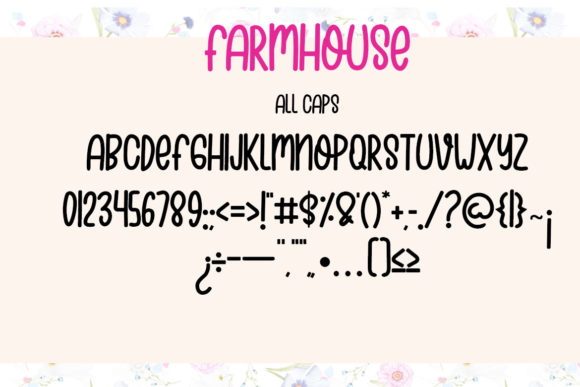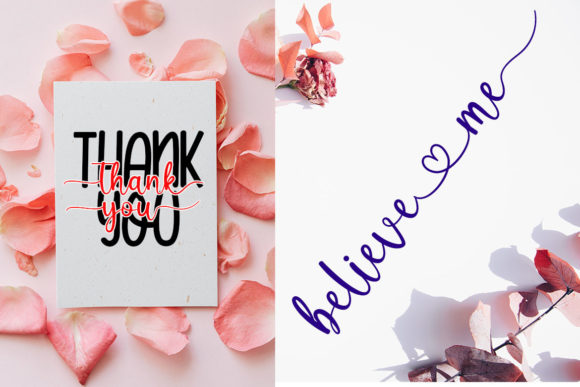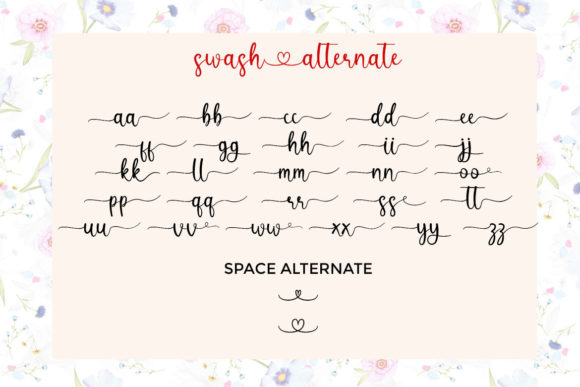
About Farmhouse Aglo Font
Farmhouse Aglo is a lovely duo font (sans serif and script). It is defined by smooth curves and is perfect for fashion branding or editorial designs. This font is PUA encoded which means you can access all of the glyphs and swashes with ease!